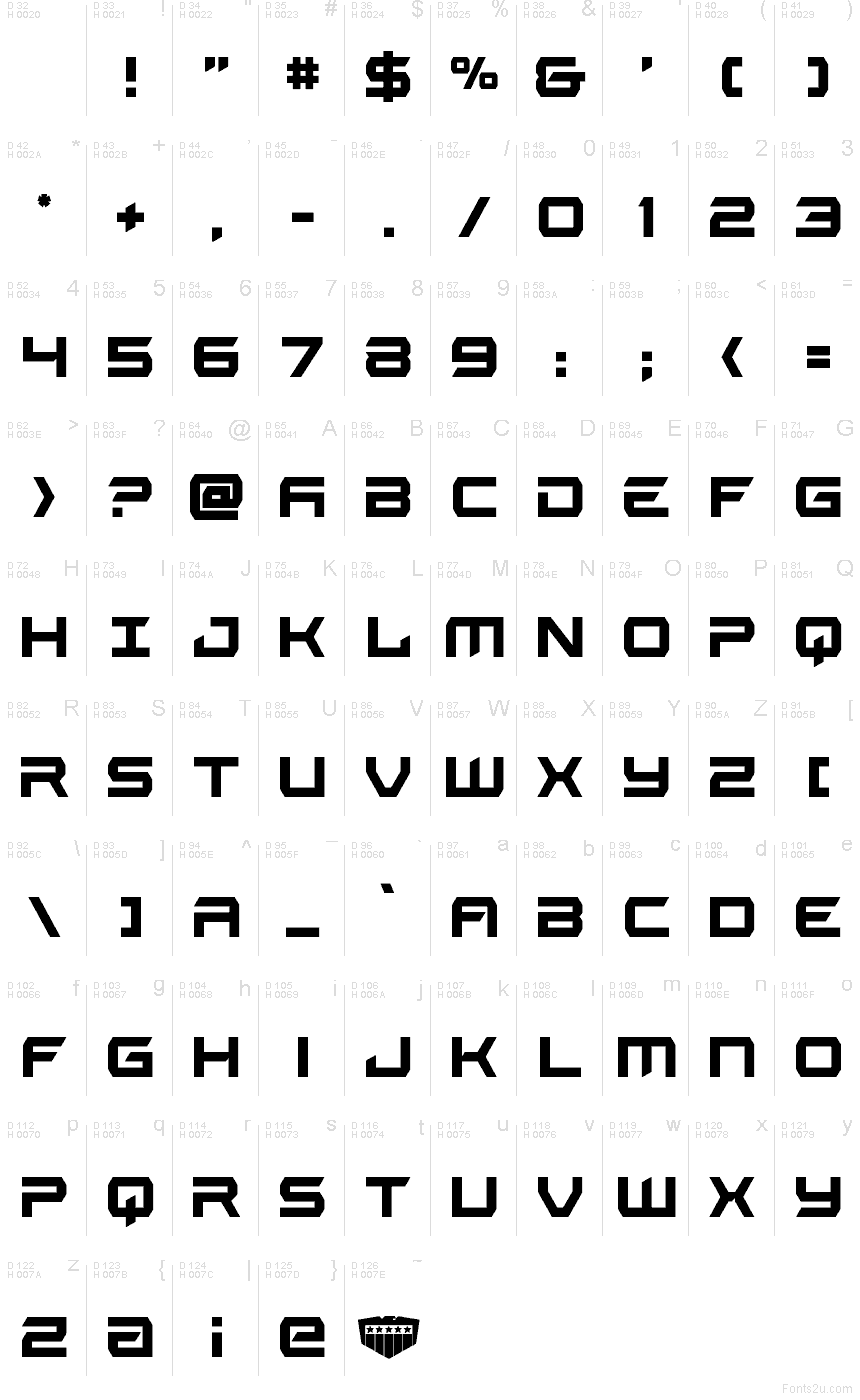
Jurist Dire Semi-Bold
Jurist Dire Semi-Bold font by Iconian Fonts is a free futuristic display typeface that hits with the force of a title card in a sci‑fi blockbuster. Its squared skeleton, razor-cut corners, and tightly engineered spacing give every word a mechanized, armored feel, as if it’s been stamped into steel. The Semi-Bold weight in the Jurist Dire family brings enough heft to command attention while keeping the letterforms clean and legible.
Using Jurist Dire Semi-Bold, headlines feel like mission codes or mech unit labels—exactly what you want for gaming logos, esports branding, tech event posters, streaming overlays, and bold UI labels. This free font also works beautifully on merch and sci‑fi book covers, where its angular rhythm reads clearly from a distance. For a sharp hierarchy, pair Jurist Dire Semi-Bold with a plain geometric sans at smaller sizes and let Jurist Dire carry the loudest moments.